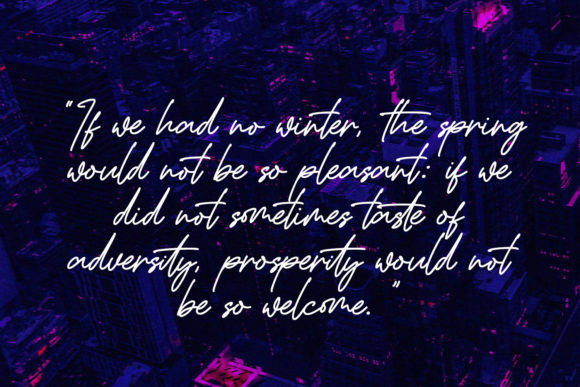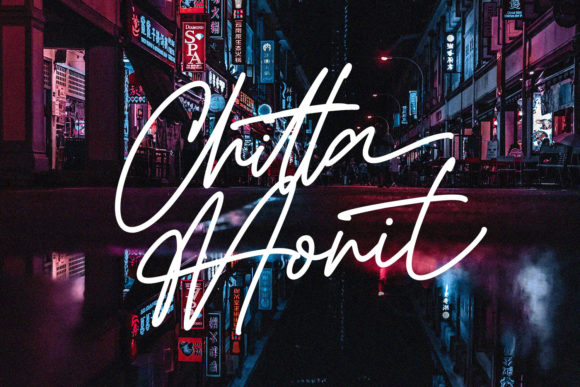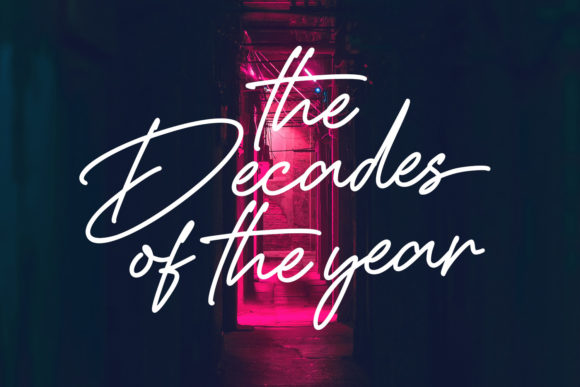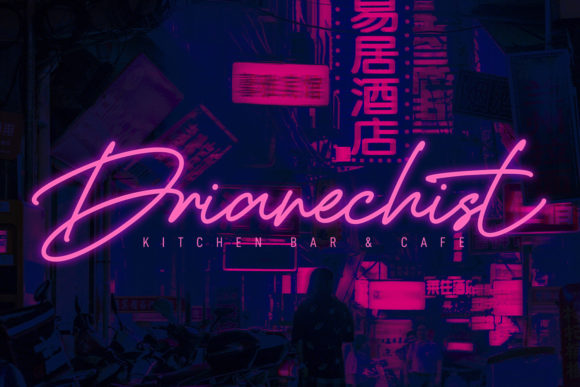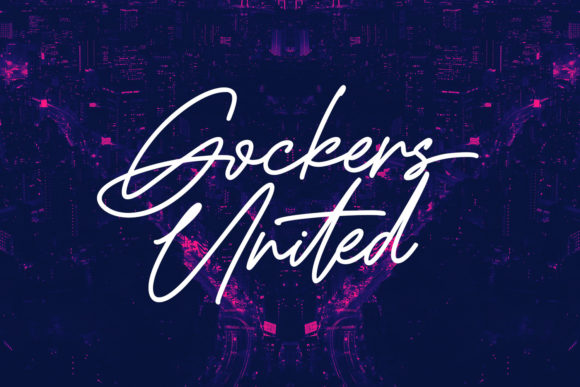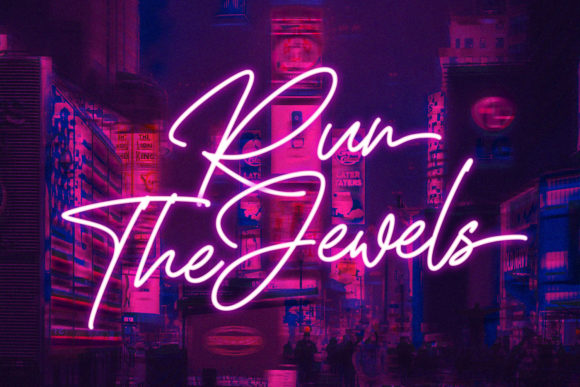
Introducing Drive Hearts Font: The Epitome of Elegance and Sophistication
In the world of typography, few fonts manage to convey the essence of luxury and refinement as effortlessly as Drive Hearts. This chic, refined script font has been turning heads with its sophisticated aesthetic, making it the perfect choice for designers and crafters looking to elevate their projects. With its stylish alternates and ligatures, Drive Hearts is a versatile font that can add a touch of elegance to any design.
The Design Behind Drive Hearts
Drive Hearts is more than just a font; it’s a statement piece. Designed with meticulous attention to detail, this script font boasts fluid strokes, graceful curves, and a refined structure that exudes sophistication. The inclusion of stylish alternates and ligatures not only adds to its visual appeal but also provides designers with the flexibility to create unique and captivating text arrangements.
Key Features of Drive Hearts Font
- Sophisticated Aesthetic: Drive Hearts features a luxurious design that adds an air of elegance to any project.
- Stylish Alternates and Ligatures: The font comes equipped with a range of stylish alternates and ligatures, allowing for creative and varied text designs.
- Versatility: Whether it’s for branding, packaging, or digital content, Drive Hearts is versatile enough to fit a wide array of design needs.
- Easy to Read: Despite its elegant and cursive nature, Drive Hearts maintains a high level of readability, making it suitable for both headings and body text.
The versatility of Drive Hearts makes it an excellent choice for a multitude of design projects. Here are a few ideas where Drive Hearts can truly shine:
- Branding and Logotypes: Create a lasting impression with a logo or brand name that exudes luxury and sophistication.
- Wedding and Event Invitations: Add an elegant touch to your wedding or event invitations, setting the tone for a refined and memorable occasion.
- Packaging Design: Elevate your product packaging with a font that communicates luxury and quality.
- Digital Content: From blog headers to social media graphics, Drive Hearts can add a touch of elegance to your digital content.
Why Choose Drive Hearts?
In a sea of fonts, Drive Hearts stands out for its unique blend of elegance, versatility, and sophistication. Here are a few reasons why designers and crafters are gravitating towards this beautiful script font:
- Unique Designs: The stylish alternates and ligatures offer a way to create unique designs that stand out.
- High Readability: Unlike some script fonts, Drive Hearts does not compromise on readability, making it practical for a range of applications.
- Support for Multiple Languages: Drive Hearts supports multiple languages, making it a great choice for global brands and projects.
Getting the Most Out of Drive Hearts
To truly leverage the potential of Drive Hearts, experiment with its features. Here are a few tips:
- Mix and Match: Don’t be afraid to mix and match different alternates and ligatures to create a unique look.
- Adjust Kerning and Spacing: For optimal results, adjust the kerning and spacing according to your design needs.
- Pair with Complementary Fonts: When pairing Drive Hearts with other fonts, choose ones that complement its elegance and sophistication.
Drive Hearts is more than just a font; it’s a design statement. With its sophisticated aesthetic, versatile features, and elegant design, it’s poised to become a favorite among designers and crafters. Whether you’re looking to elevate your branding, create stunning invitations, or simply add a touch of luxury to your digital content, Drive Hearts is the perfect choice. Embrace the elegance and sophistication that Drive Hearts has to offer and take your designs to the next level.